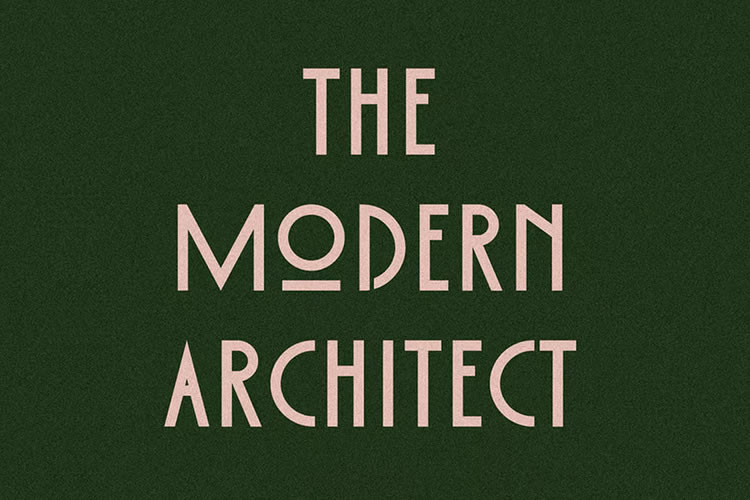
The Art Deco aesthetic has been part of the design world for over a century. It’s glamorous, decadent, and has incredible staying power. We still see it in use across a full spectrum of media.
Implementing the style can be as simple as using an Art Deco font. Both serif and sans-serif variants offer a classic look. They’re a fit for any project that requires a touch of elegance.
Are you looking for the perfect Art Deco font? You’ve come to the right place! We’ve searched the web for the best free art deco fonts for designers.
The options below feature the telltale marks of the style’s heyday. You’ll find tall, bold characters that draw your attention. There are also unique features that go beyond the ordinary.
Browse our collection and find the fonts that speak to you. You’ll have a head start on creating a timeless look.
Catallina is a gorgeous all-caps Art Deco font with plenty of extras. It comes with alternate characters and over 50 ligatures. It’s a perfect choice for creating a snazzy logo or headline.
Beautiful, rounded letterforms are the hallmark of this font. It features an all-caps alphabet with all the special characters you’ll need. The font comes in three formats and will leave a lasting impression on your designs.
Senilità blends the classic Art Deco aesthetic with an extra-bold weight. The result is a font that would work well for text headings. Take advantage of the included custom ligatures to add a unique touch to your project.
Consider Rocketeers when you want to add a retro vibe to your work. The font is beautiful and versatile, with upper and lowercase characters. You’re sure to find plenty of ways to use this one.
Here’s a high-contrast Art Deco font that is long on personality. Inspired by the styles of the 1920s, the characters are extra wide. Use it to showcase titles or dress up your logo.
This font offers a modern twist on the Art Deco style. Jacelon puts a focus on legibility, lending itself to many use cases. This versatility gives you the best of both worlds.
We often associate Art Deco fonts with big, bold letterforms. Mounchera is proof that the style works with ultra-thin characters as well. Be sure to check out the included alternate styles and ligatures to take your designs further.
Here’s a font designed especially for creating monograms. It’s incredibly classy and includes three styles and an array of extras. Use this one to add an elegant aesthetic to your brand.
Tyllon combines an Art Deco style with an urban appeal. Big and bold, this font will help you create can’t-miss titles and headlines. The included ligatures provide plenty of options to customize your look.
A vintage all-caps font, Monterio is an excellent choice for logos and print projects. You’ll find four styles: light, regular, semibold, and bold. That gives you enough versatility for all manner of designs.
Modern Deco is a clean, sans-serif option that is ideal for use as a display font. The font maintains legibility while adding some unique touches to its characters. Perfect for scenarios where you want a hint of retro in your typography.
This free font offers a different take on a classic look. It combines the Art Deco and Art Nouveau styles, making it a fun decorative typeface. You’ll also find seven font weights and multilingual support.
Here’s an elegant option that features playfully rounded ligatures. The font features upper and lowercase characters, along with numbers and punctuation. It seems like a natural fit for logo design.
Adelios is a free font with seemingly endless possibilities. There are 12 styles to choose from that you can mix and match to create different effects. It’s also a beautiful representation of the Art Deco style. What more could you ask for?
TT Modernoir includes multiple weights that lend to its versatility. Whether you’re looking for an ultra-thin typeface or something bold, you’ll find it here. This French-inspired font is a great addition to your library.
Luxurious and sophisticated, Monsante will dress up any design project. It provides a modern touch but looks as authentic as a 1920s Broadway playbill. It’s the perfect typeface to build your project around.
Florisha features uniform upper and lowercase character heights. The result is a consistent style that is fun and easy to read. The three included weights make it suitable for a variety of uses.
Here’s a font inspired by the Italian design of the 1930s. It features two distinct styles and five font weights to mix and match. It’s a nice alternative to the more mainstream Art Deco options.
Ring Link began as an entry in a typography contest. The font combines old and new styles with a subtle techno vibe. The characters are extra tall and will help your project make a statement.
Buenos Aires NF is an Art Deco outline font with plenty of pizzaz. The all-caps look makes it a great option for headlines or logos. There’s a sportiness to the font that may lend itself to athletic design.
The Timeless Elegance of Art Deco
There’s a reason why Art Deco never goes out of style. It offers a peek into a time when glamour and glitz ruled design. You can’t help but feel good when you see it in the wild.
The fonts in this collection can help you recapture that spirit. Each provides a unique spin on the aesthetic. That gives you plenty of options for creating something special.
So, settle in and see what these fonts are capable of. And don’t be surprised if you feel a bit nostalgic in the process!